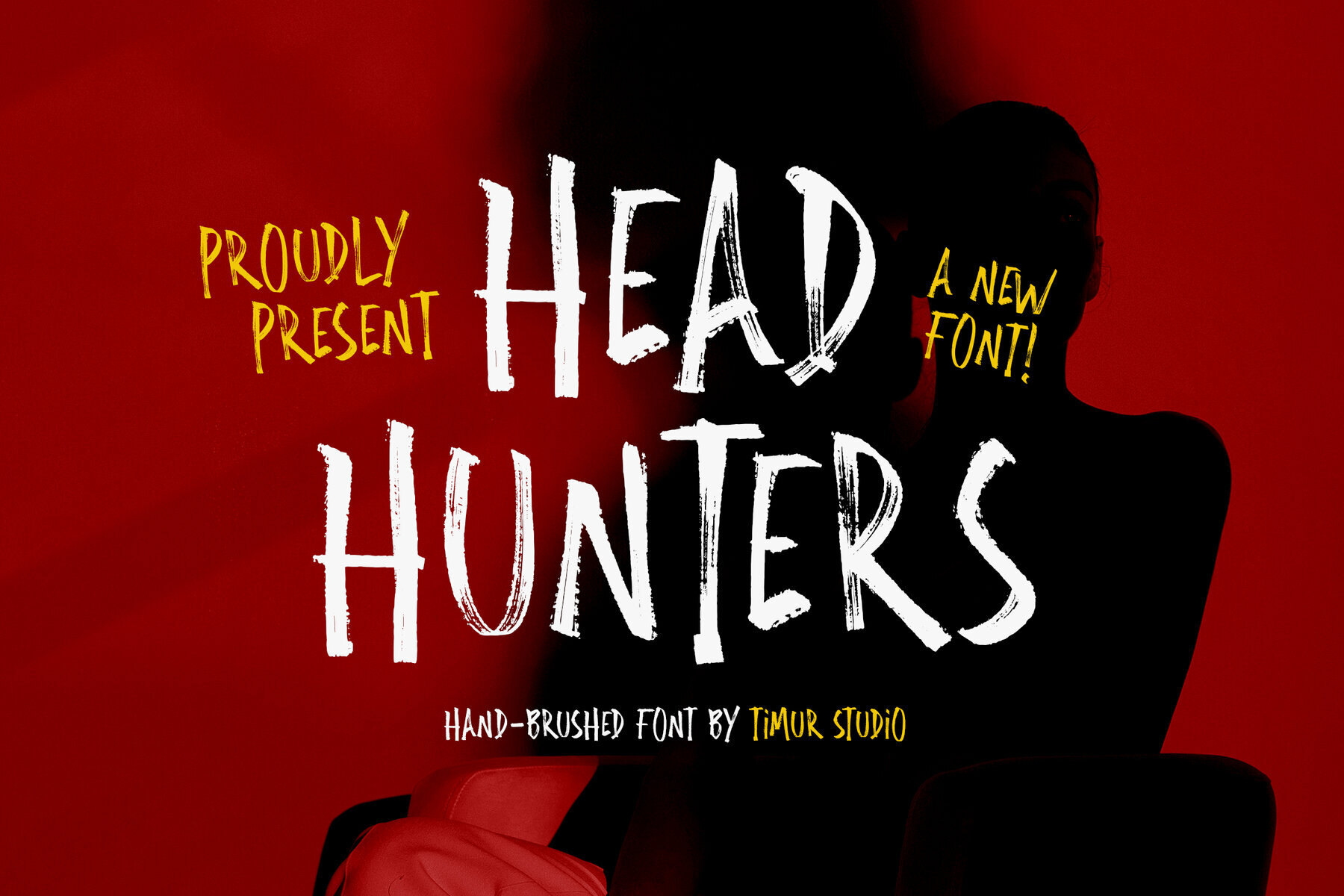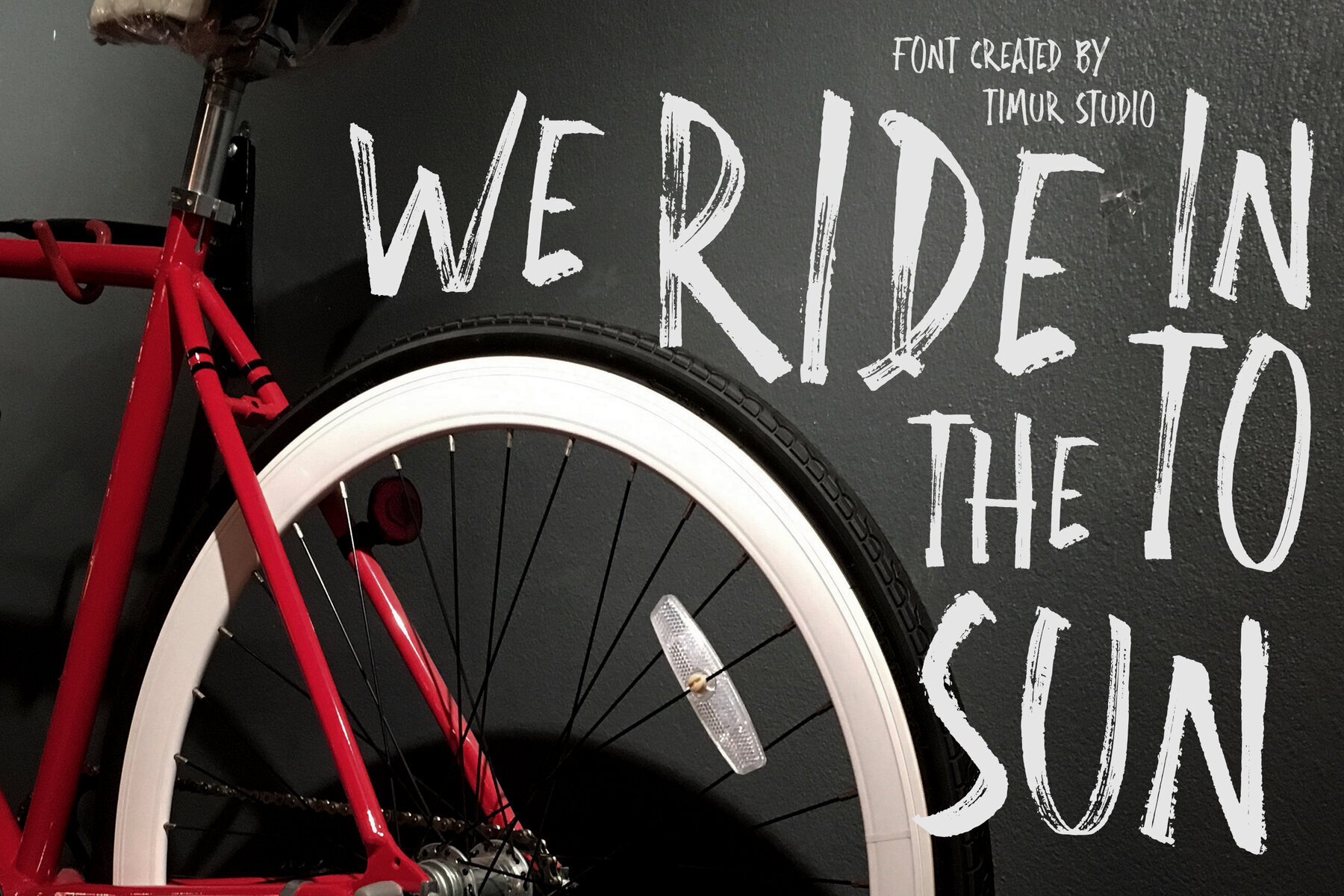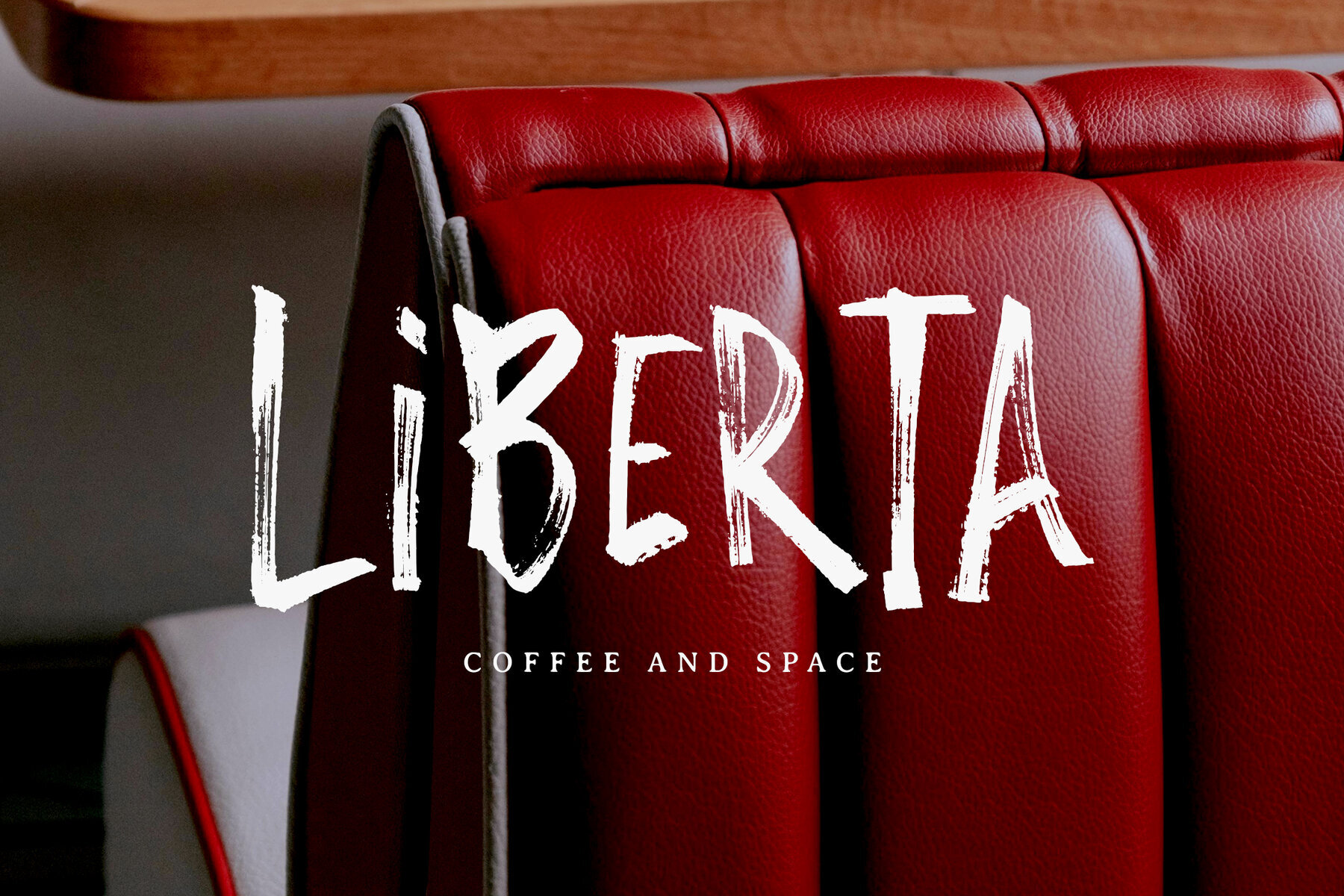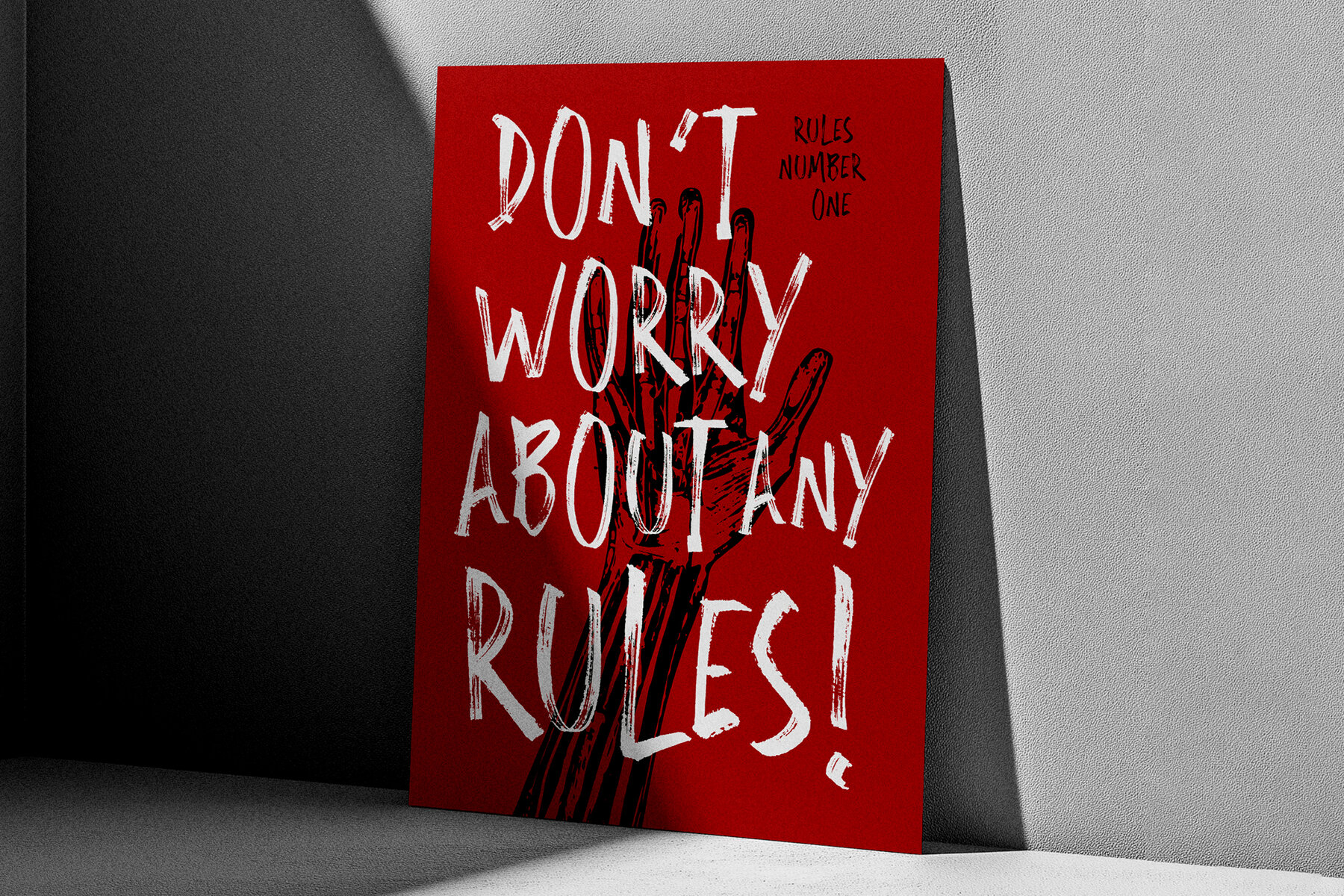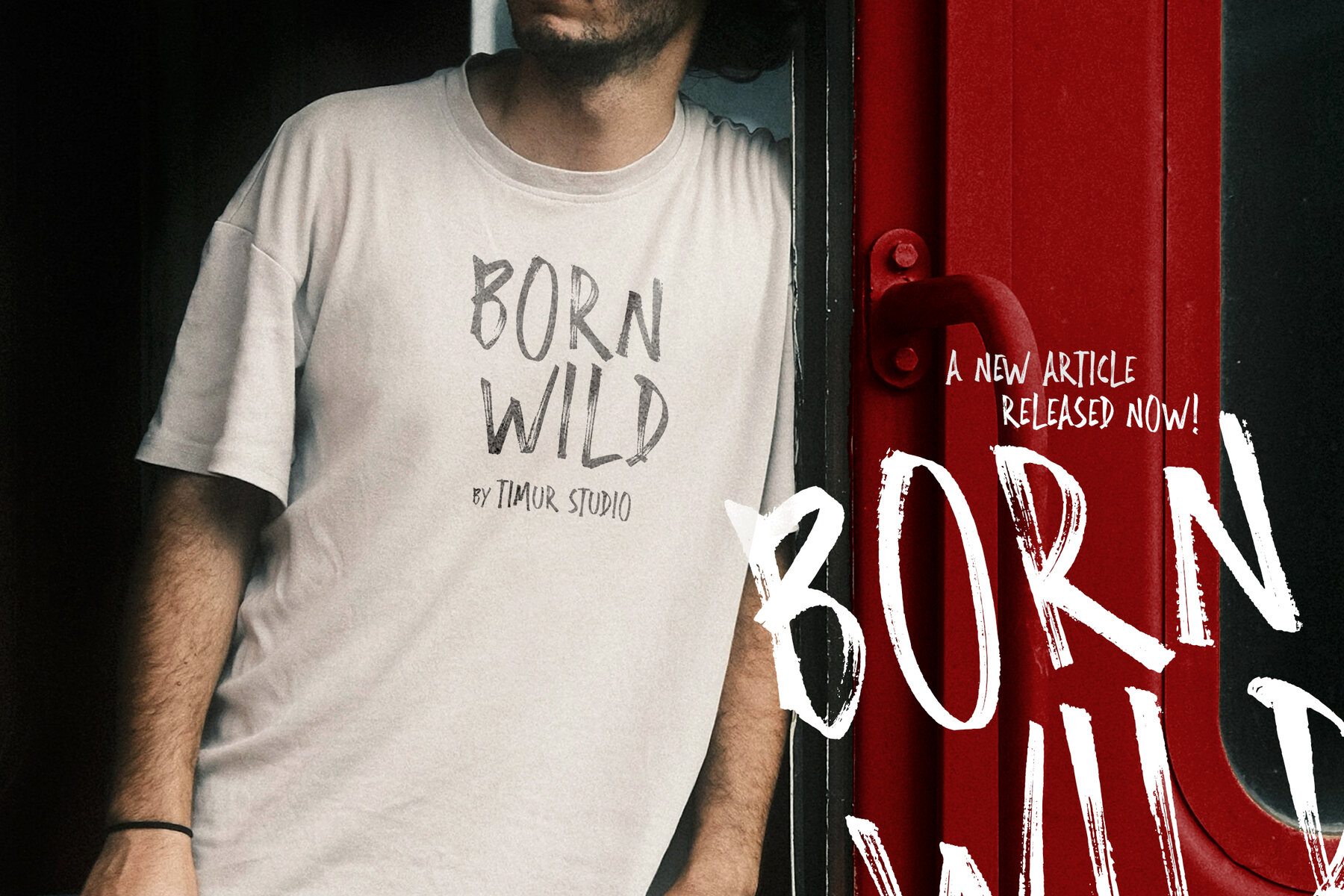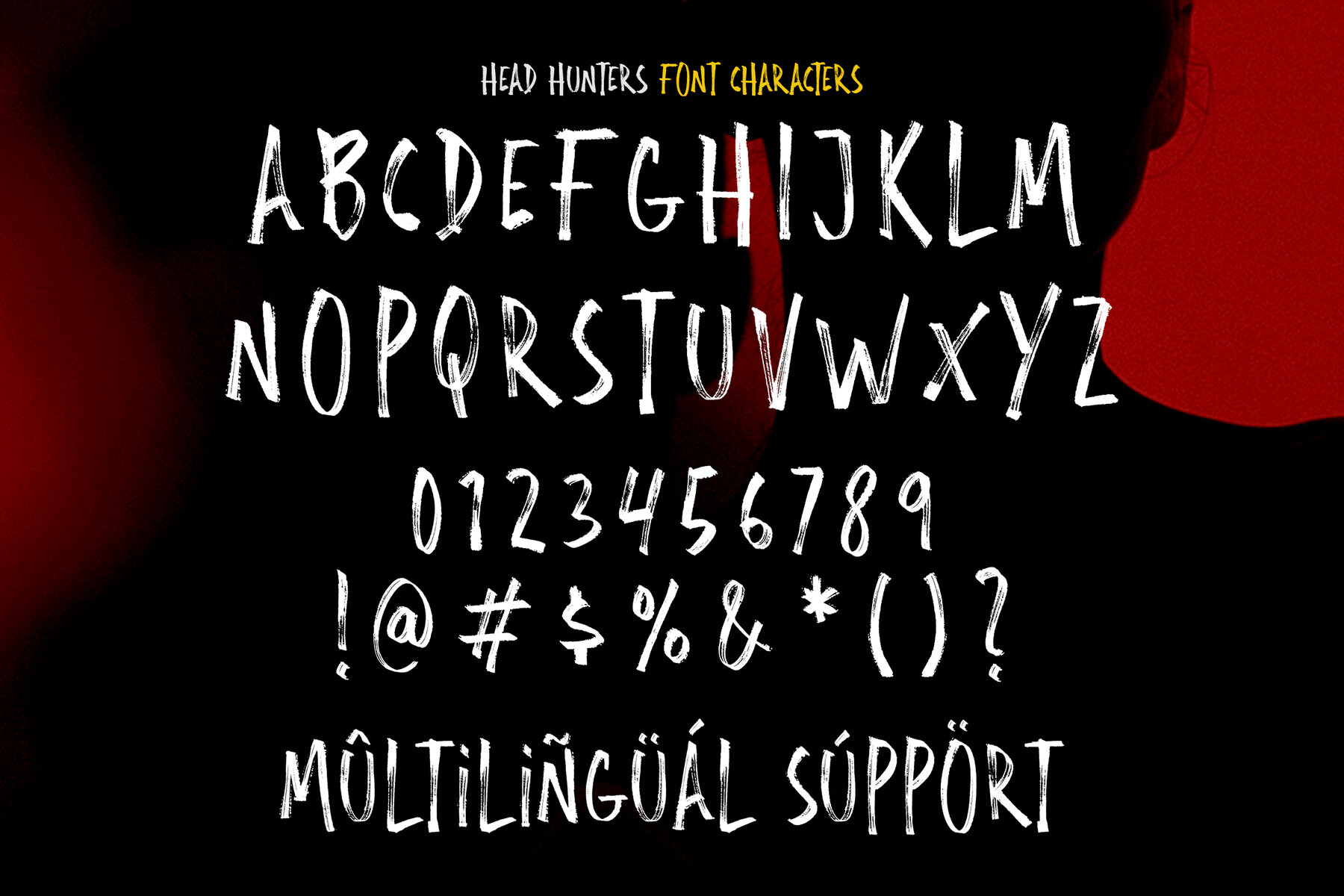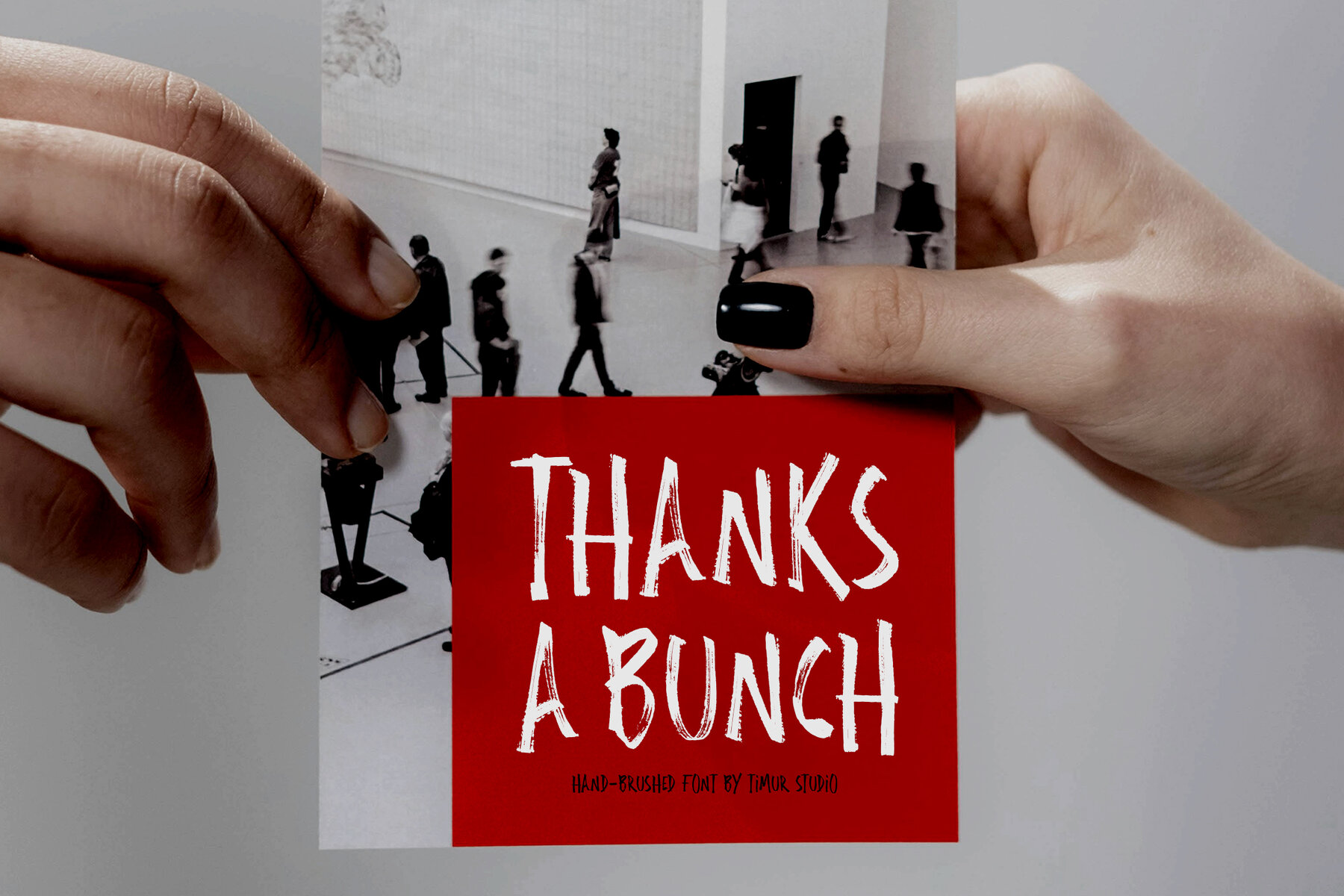
Head Hunters Font
Head Hunters
Infuse your designs with a rebellious spirit using Head Hunters, a bold and edgy hand-brushed font. Crafted with raw and expressive strokes, this typeface exudes a distinctive street-style feel. It's ideal for a variety of design projects, from posters and logos to album covers and urban branding.Head Hunters Font